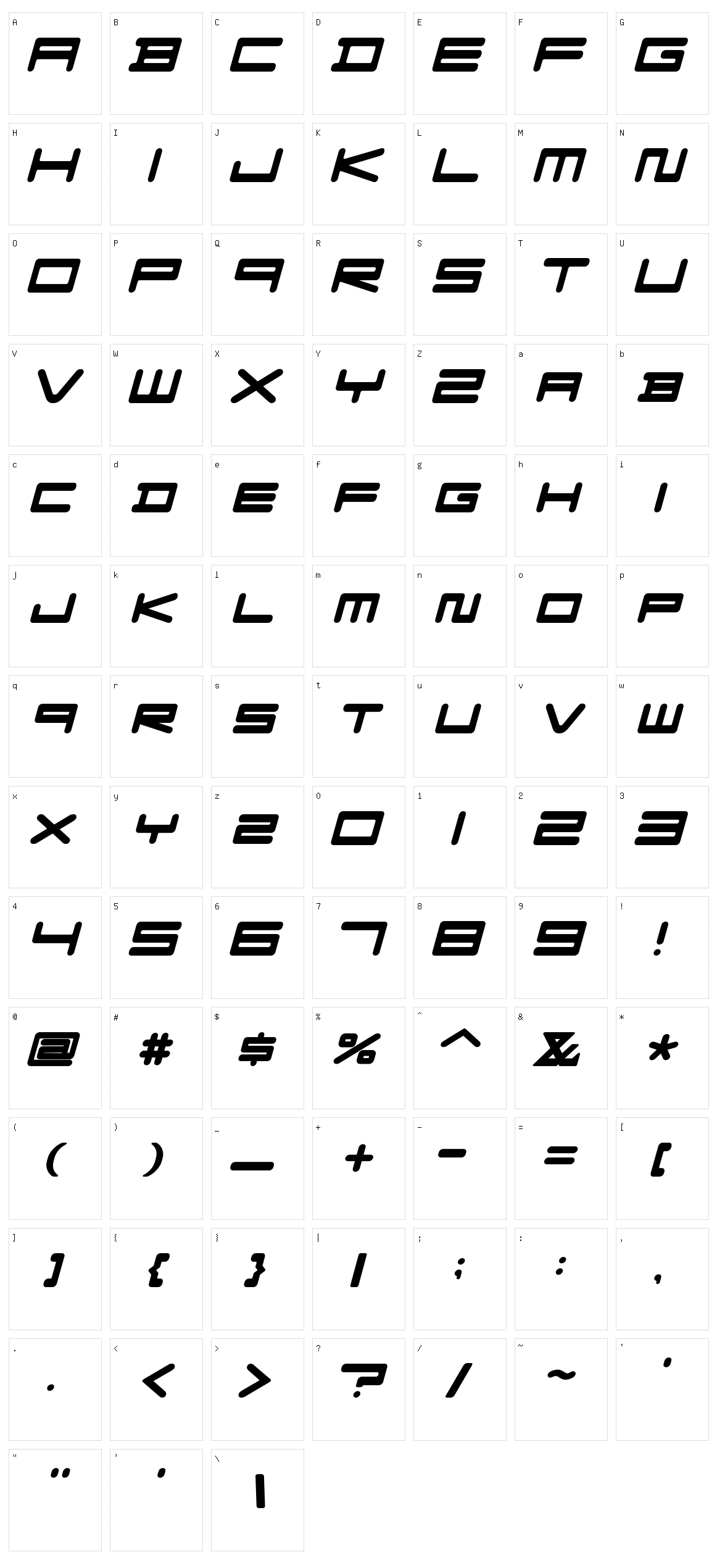
F-Zero GX Venue
Venue Font
This font was inspired by the font used to display the course venue in the racing game F-Zero GX.
Use CAPSLOCK when typing. Small caps are included for typing in lowercase.
Outline versions are also included.
How to recreate the venue font look:
Choose the F-Zero GX Venue Font-Semi Light Oblique font.
Add a vertical gradient with white (#FFFFFF) at the top blending into cyan (#C6FFFF) at the bottom.
Add an outer stroke.
The stroke layers are made up of 3 layers with the innermost and outermost layers being twice as thick as the center stroke layer.
Each stroke layer also has a separate opacity strength:
First stroke layer color #444444 (40% thickness) (71% opacity)
Second stroke layer color #99AABB (20% thickness) (57% opacity)
Third stroke layer color #224455 (40% thickness) (43% opacity)
In Photoshop, after adding a stroke you need to convert the text to a Smart Object before you can add another stroke on top.
Menu Font
This font was inspired by the font used in various places in the menu titles.
Menu Font Regular partially conforms to a grid and can be used as a pixel font at sizes that are multiples of 10pt.
Several alternate lowercase glyphs are included for the Menu Font: a, b, e, g, h, i, j, k, n, r, v, y, z